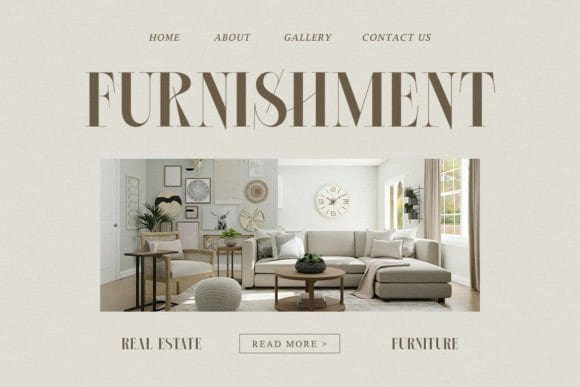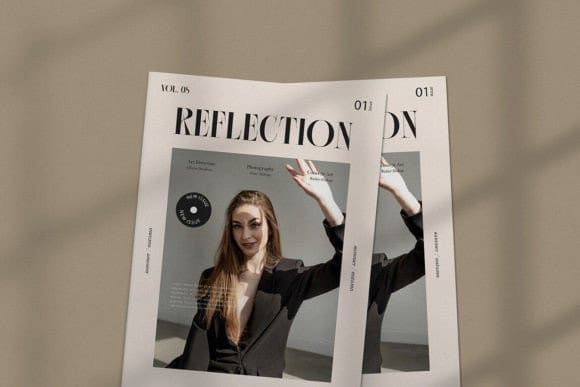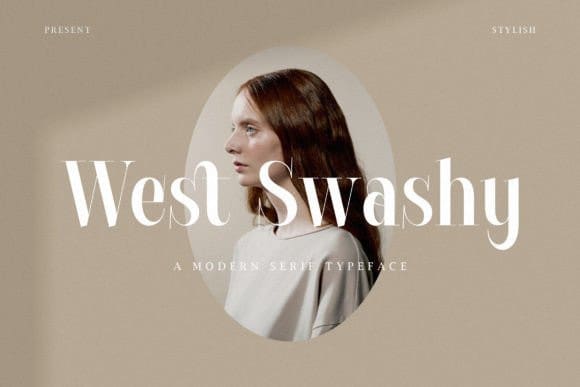
West Swashy Font
West Swashy Font– a serif typeface that blends sophistication and versatility in your designs! With its refined and stylish letterforms, “West Swashy” adds a touch of contemporary charm to any project. Each character is meticulously designed to strike the perfect balance between elegance and readability, making it ideal for luxurious branding, editorial layouts, exquisite invitations, and more.
Embrace the timeless allure of “West Swashy” as it effortlessly enhances your designs. Whether you’re creating refined logos, captivating book covers, prestigious certificates, or elegant stationery, this font will captivate your audience with its modern and seriff style.
Step into a world of refined typography with “WestSwashy” and let your designs speak with sophistication and versatility!